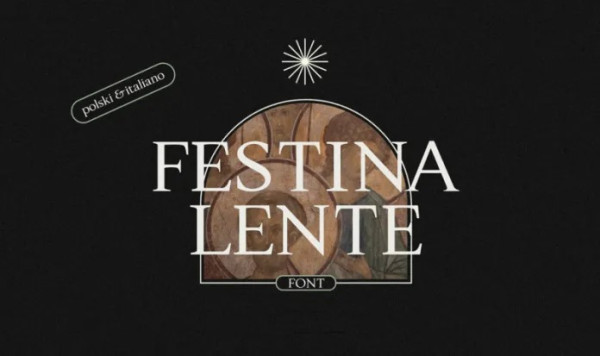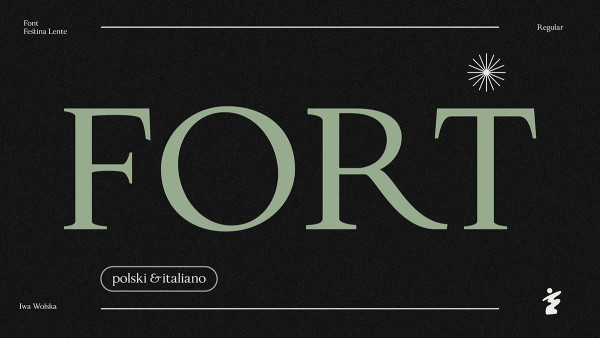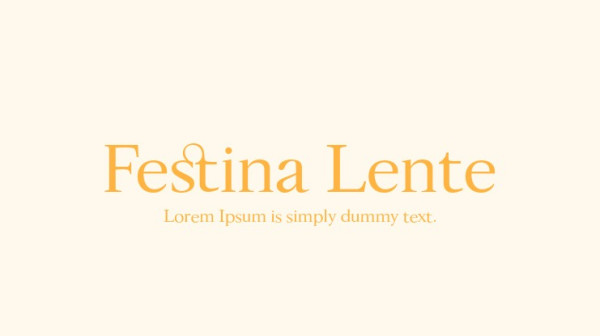
Festina Lente Font
Festina Lente Font by Iwa Wolska is a free cutting-edge font that seamlessly blends the boldness of display typography with the fluidity of italic style. This font offers a captivating mix of strong and expressive letterforms with a touch of dynamic energy. Whether used in large titles, posters, or logos, Dynamic Fusion adds a touch of creativity and sophistication to any design.